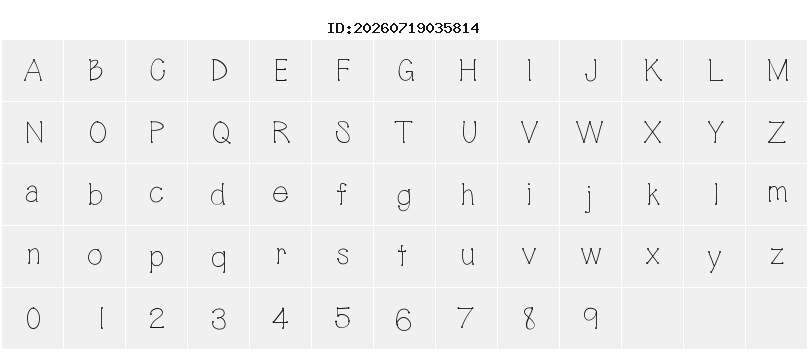
• Font Name: Connected
Connected.ttf is a modern, elegant sans-serif font designed for ultimate readability and visual harmony. Perfect for branding, headlines, web design, and print materials.